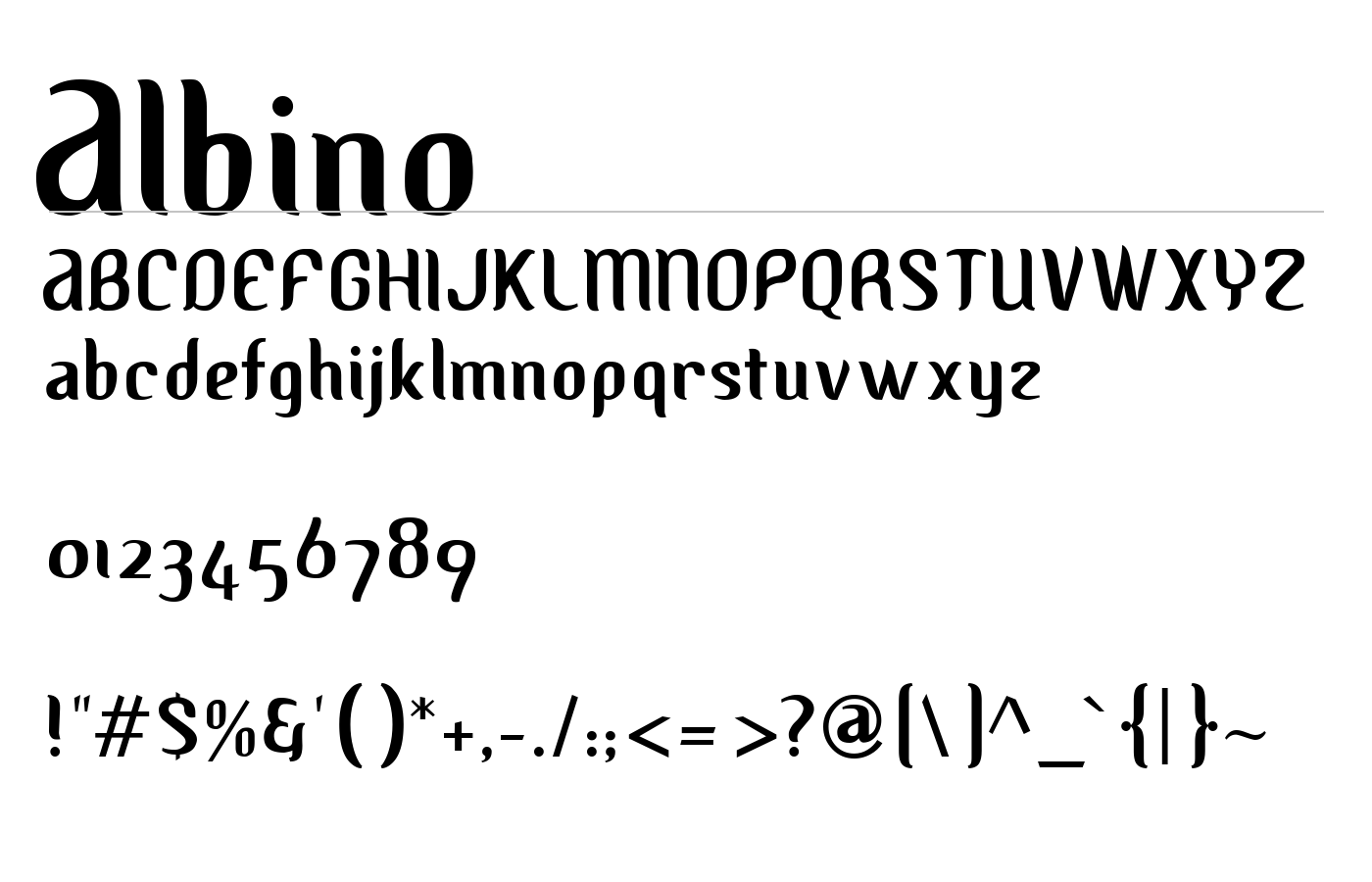
Albino is a unique serif font with a charming blend of vintage and whimsical qualities. Its slightly condensed letters feature moderate contrast and distinctive, curved serifs that give it personality and warmth, making it ideal for creative headlines, packaging, and editorial design where a touch of elegance and playfulness is desired. This font’s distinctive shapes and balanced proportions lend it a friendly yet sophisticated feel, perfect for brands seeking to stand out with a classic yet approachable style.
Albino Font